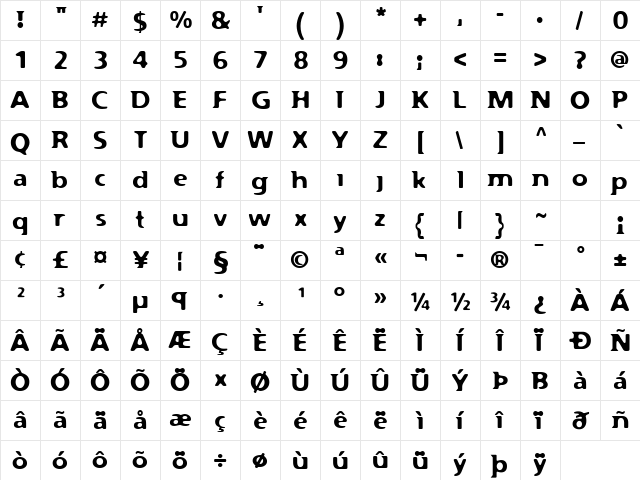
Flexure Regular
Design Context for Flexure Typeface
Flexure takes a measured approach to typography — its balanced proportions and neutral character make it a reliable workhorse for both digital and print work.